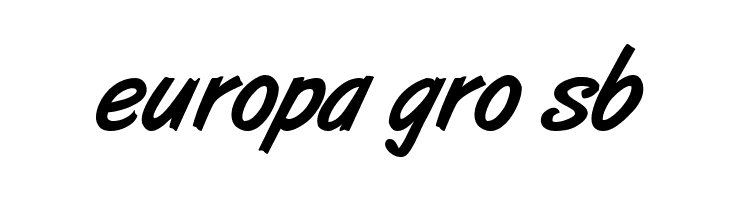
A bold, distressed font with a grunge texture and splattered ink effect.
A bold, brush-style font with dynamic, hand-painted strokes.
A casual, handwritten font with a dynamic and flowing style.
A bold, geometric font with angular and linear elements, offering a modern and structured appearance.
A decorative typeface with geometric Art Deco motifs and intricate patterns.
A bold, artistic font with an ink-like, fluid appearance.
A decorative Art Deco-inspired font with intricate patterns and motifs.
A bold, expressive handwritten font with fluid and dynamic strokes.
A bold, gothic-inspired font with sharp, intricate details.
A decorative font inspired by African art, featuring bold and intricate symbols.
A pictorial, cave-art inspired decorative font with hand-drawn glyphs.
A decorative pictogram font featuring artifact and tribal-inspired symbols.
A decorative and modern typeface with playful uppercase and straightforward lowercase letters.